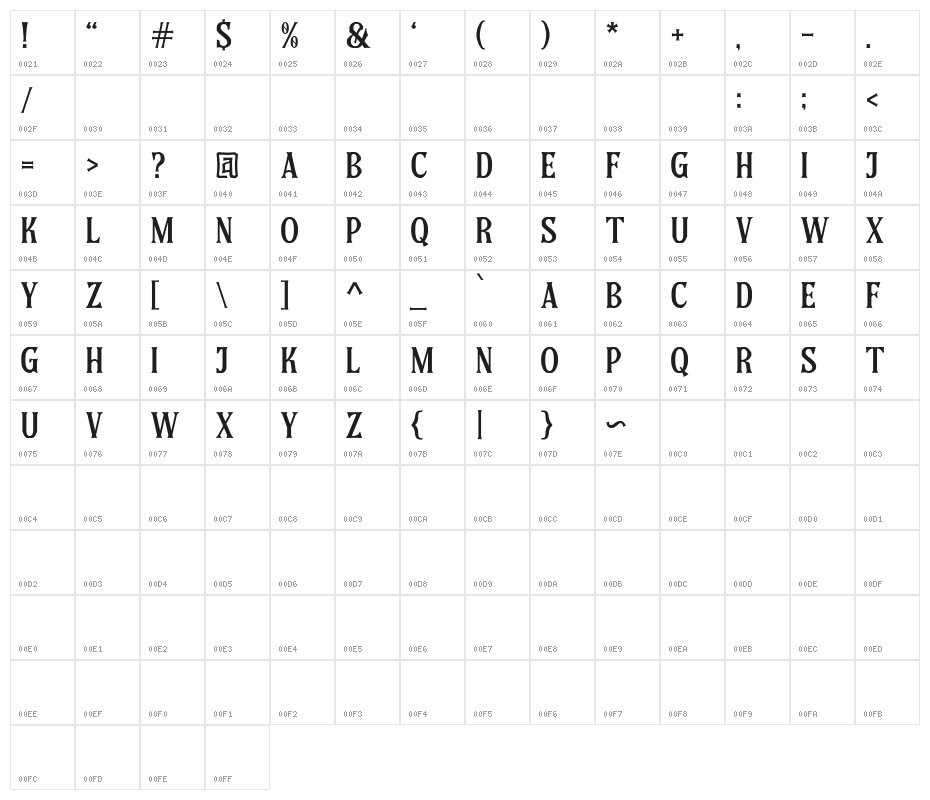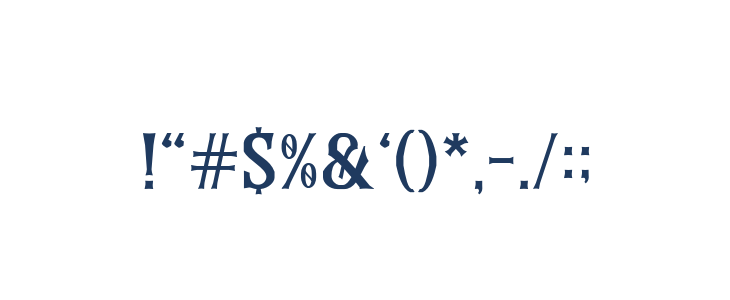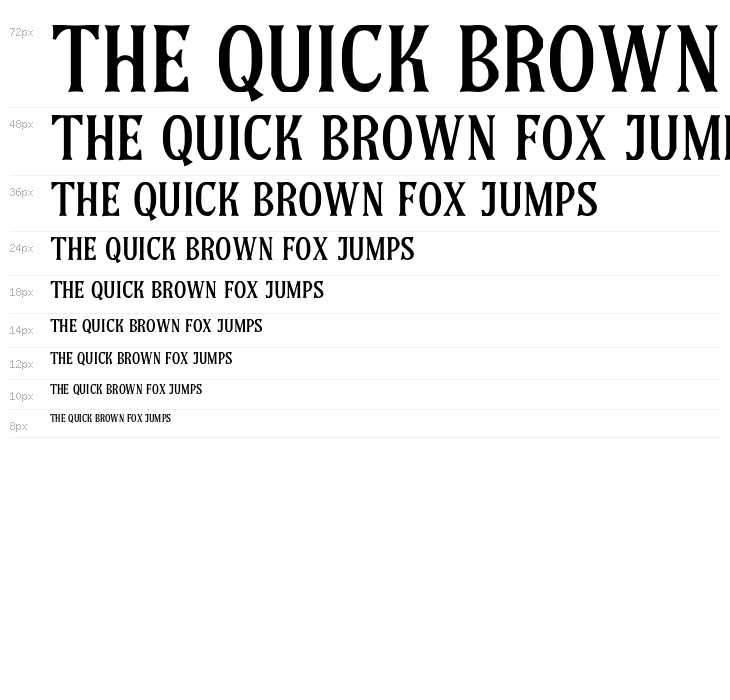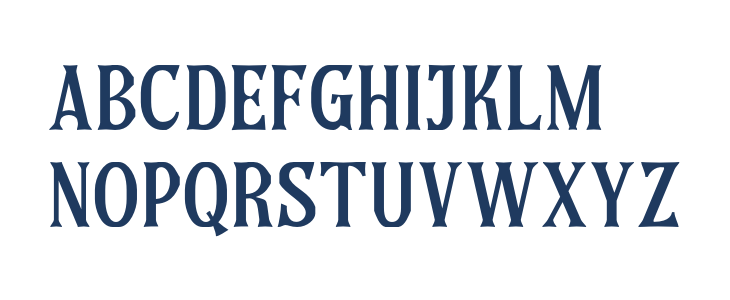
Eligated DEMO Font
Eligated DEMO Description
This font features a bold and striking design with a classic serif style. The characters are well-defined with sharp, angular serifs that give it a distinctive and authoritative appearance. The uppercase letters are particularly prominent, with a slightly condensed form that enhances their impact. The lowercase letters maintain the same boldness, ensuring consistency across the typeface. The numbers and special characters are equally robust, making them suitable for various applications. This font's strong presence makes it ideal for projects that require a commanding and traditional look.
| Proposed Projects | Ideal for headlines, posters, book covers, and branding materials that require a traditional and authoritative look. |